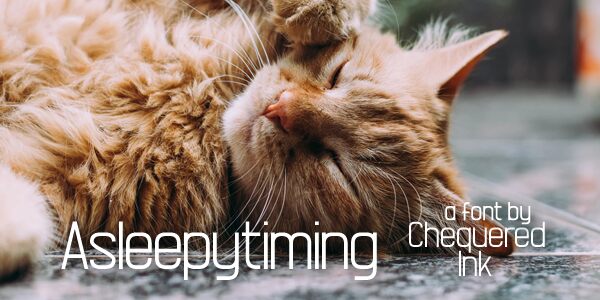
Asleepytiming
Asleepytiming is a striking sans serif font that exudes a distinct techno-inspired aesthetic. Crafted by Chequered Ink, this condensed typeface boasts a sleek, futuristic appearance with its sharp angles and minimalist forms. The font's clean, streamlined design lends itself to a range of applications, from bold headlines and impactful branding to dynamic user interfaces and cutting-edge digital experiences.
Asleepytiming's versatility and eye-catching style make it an exceptional choice for designers seeking to create a sense of modernity and technological sophistication within their projects.